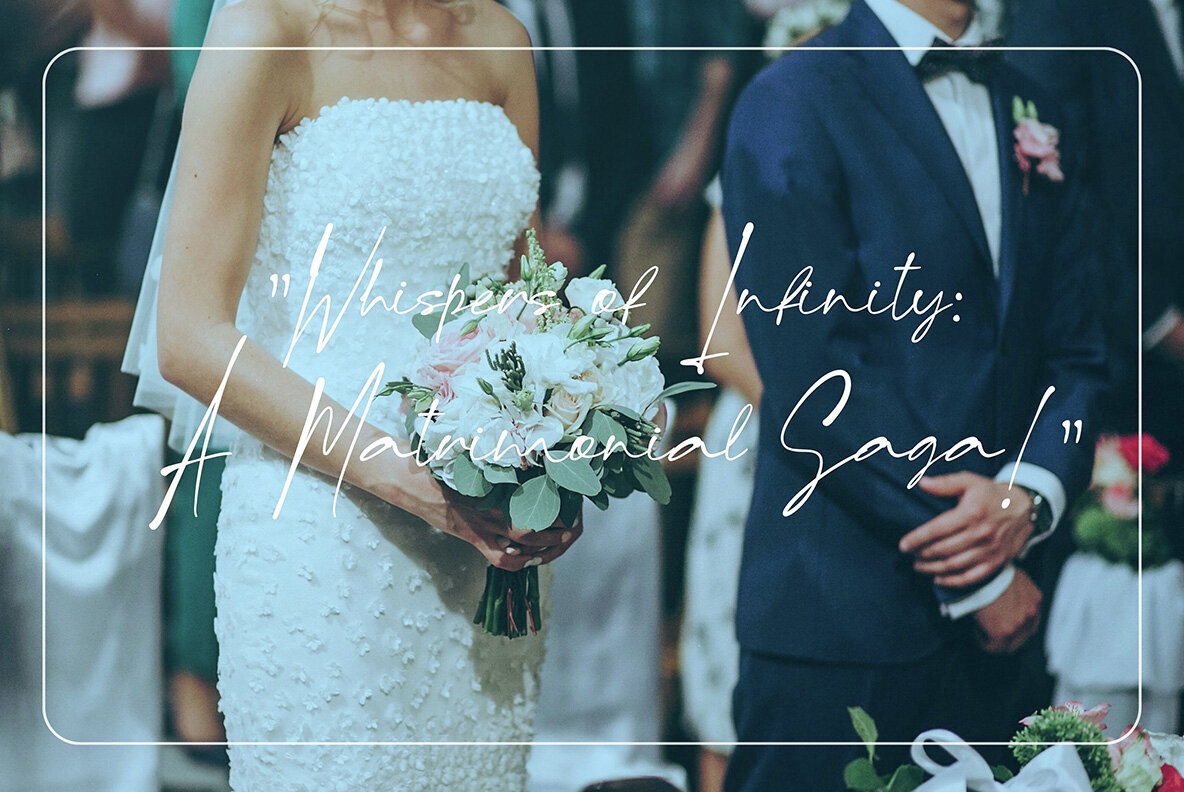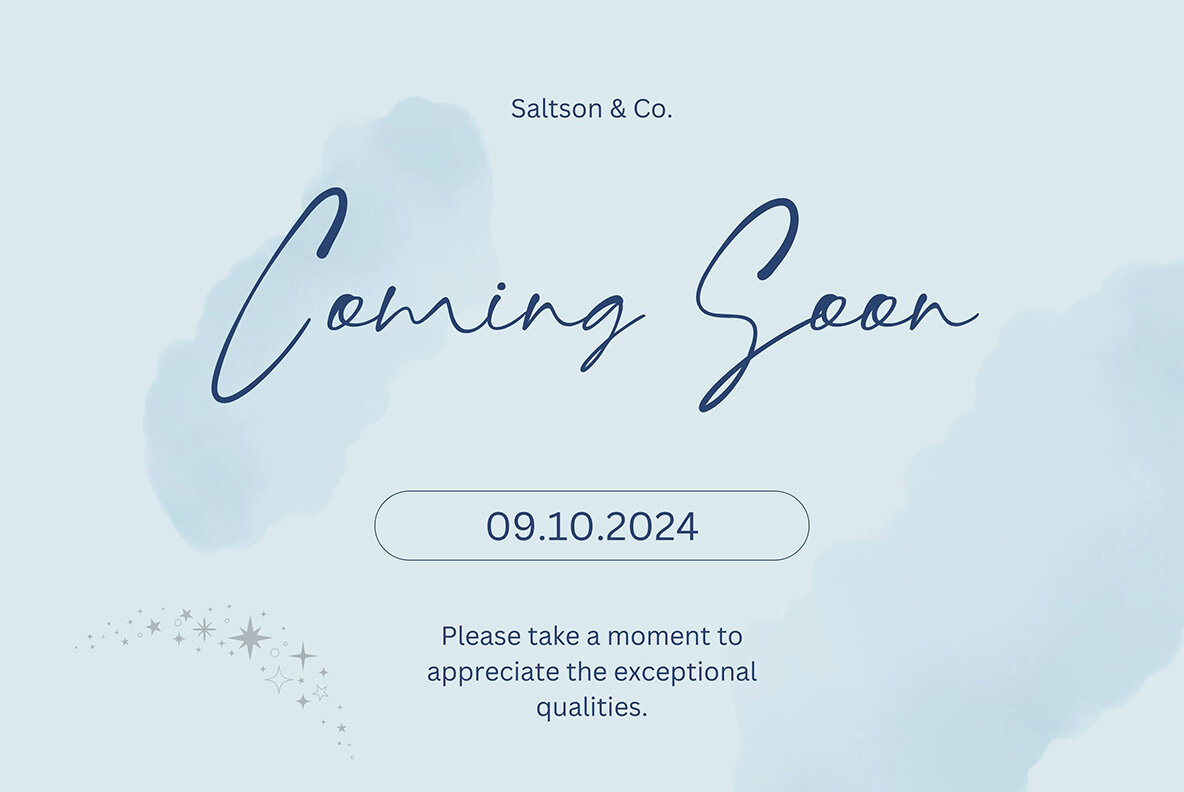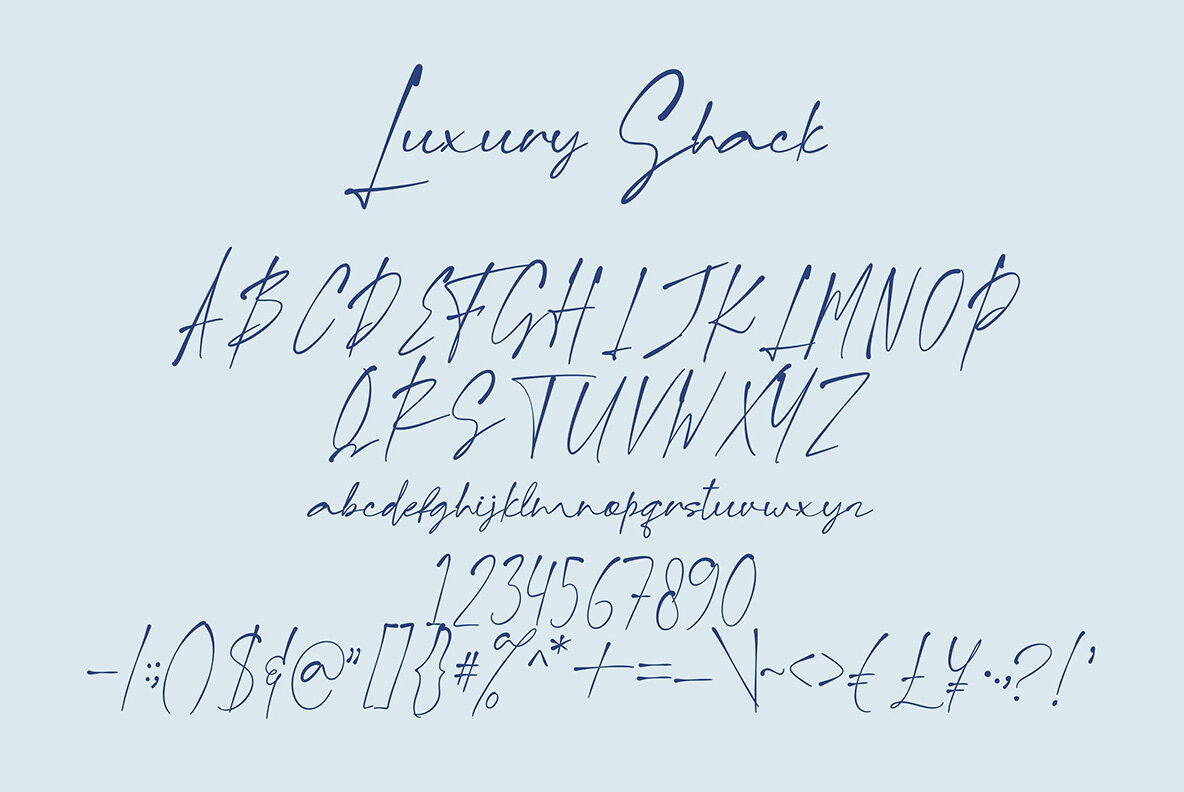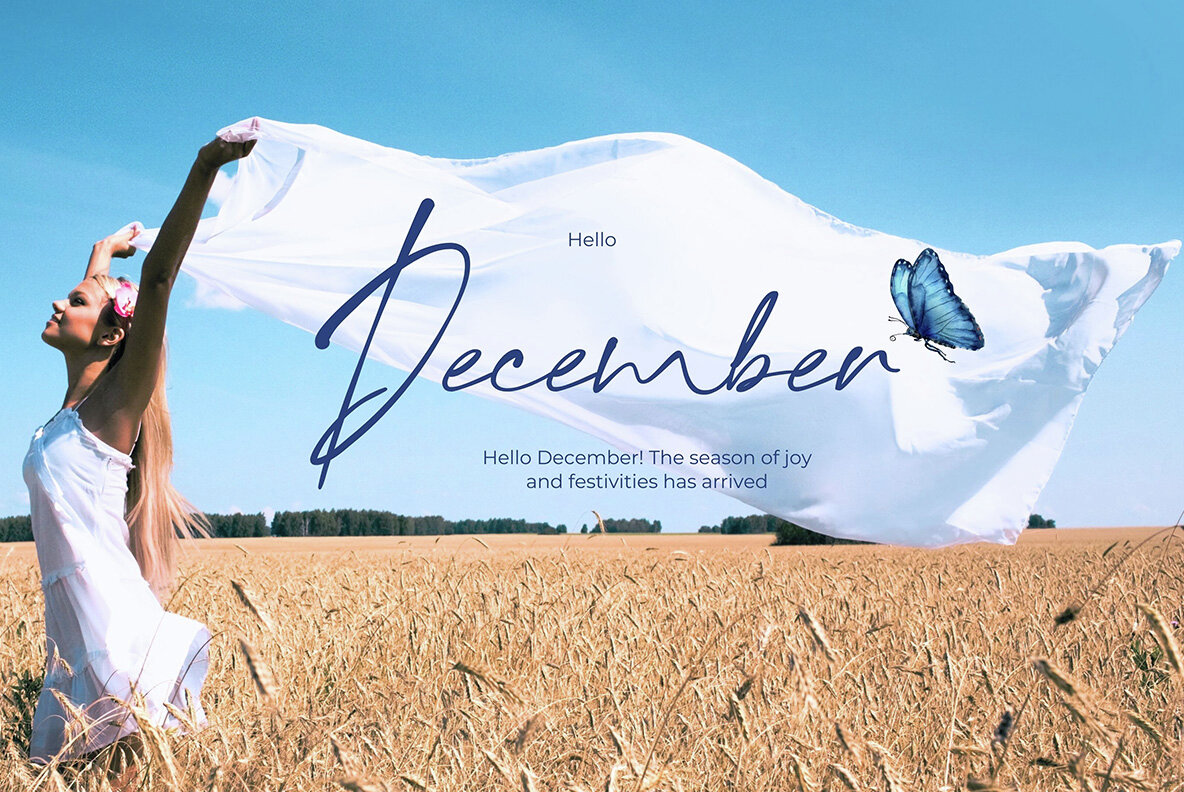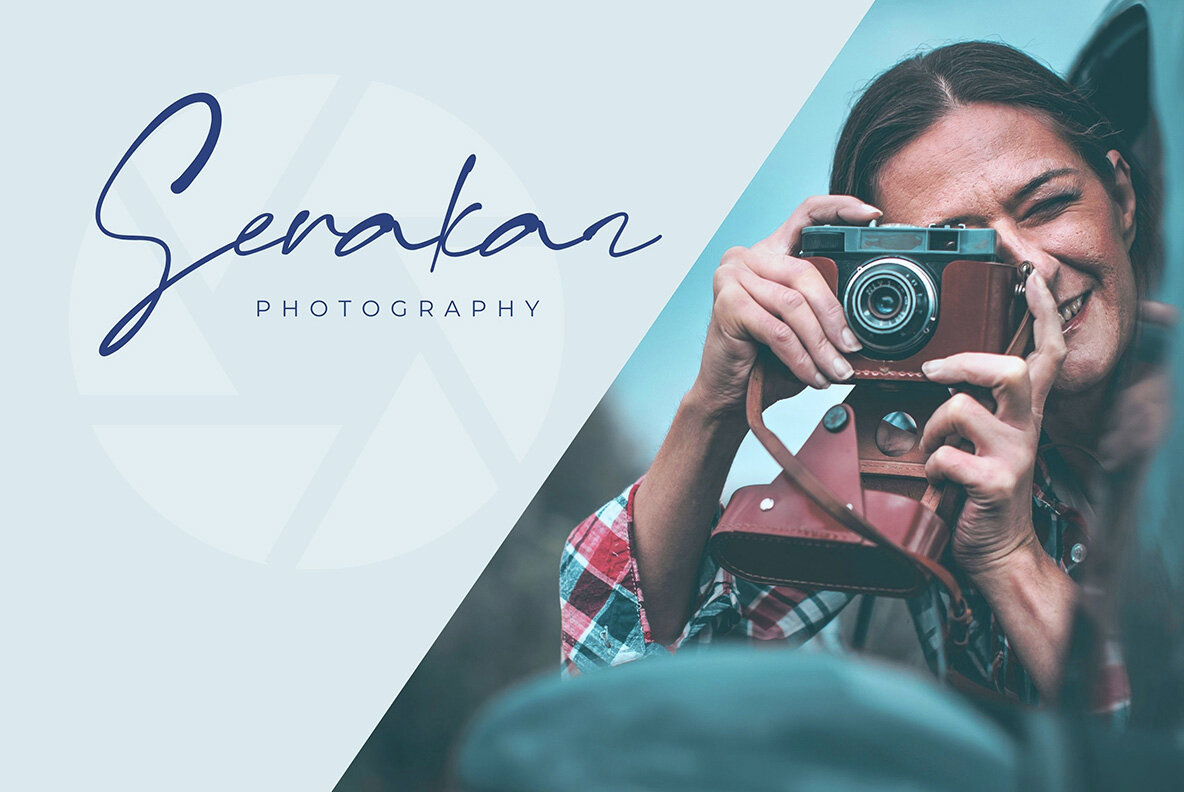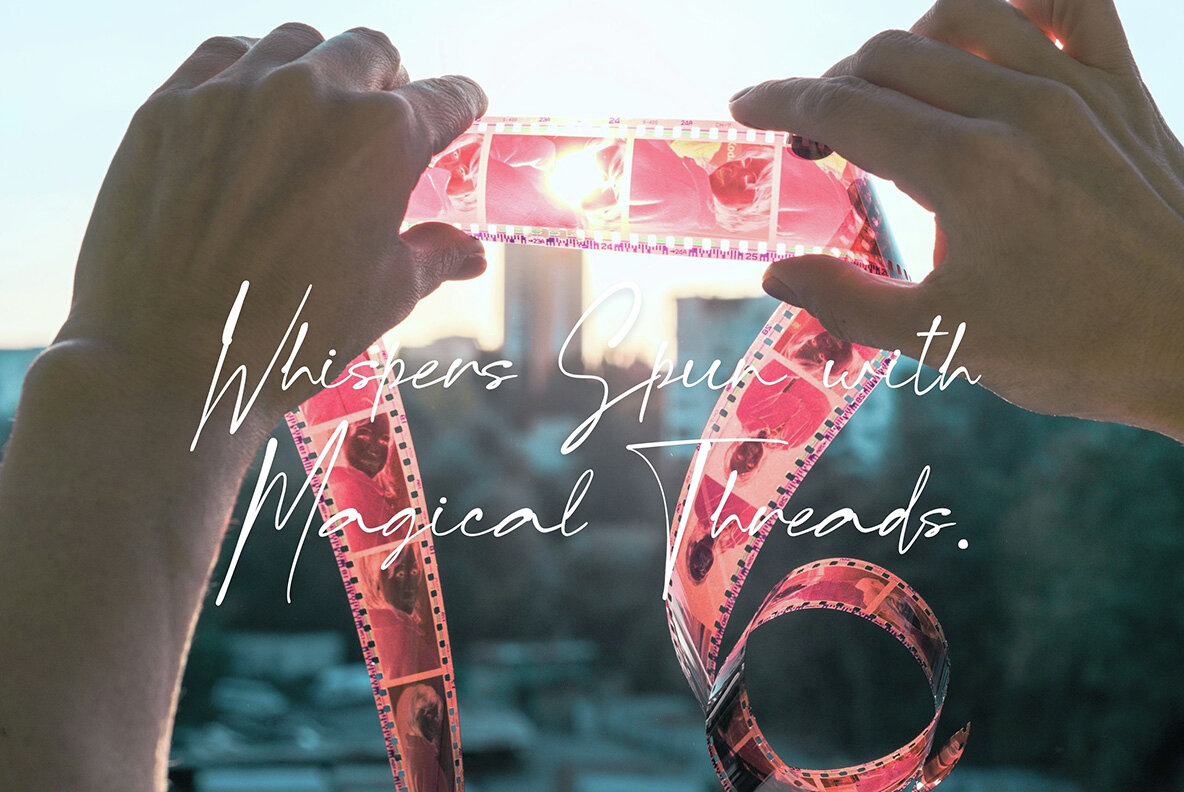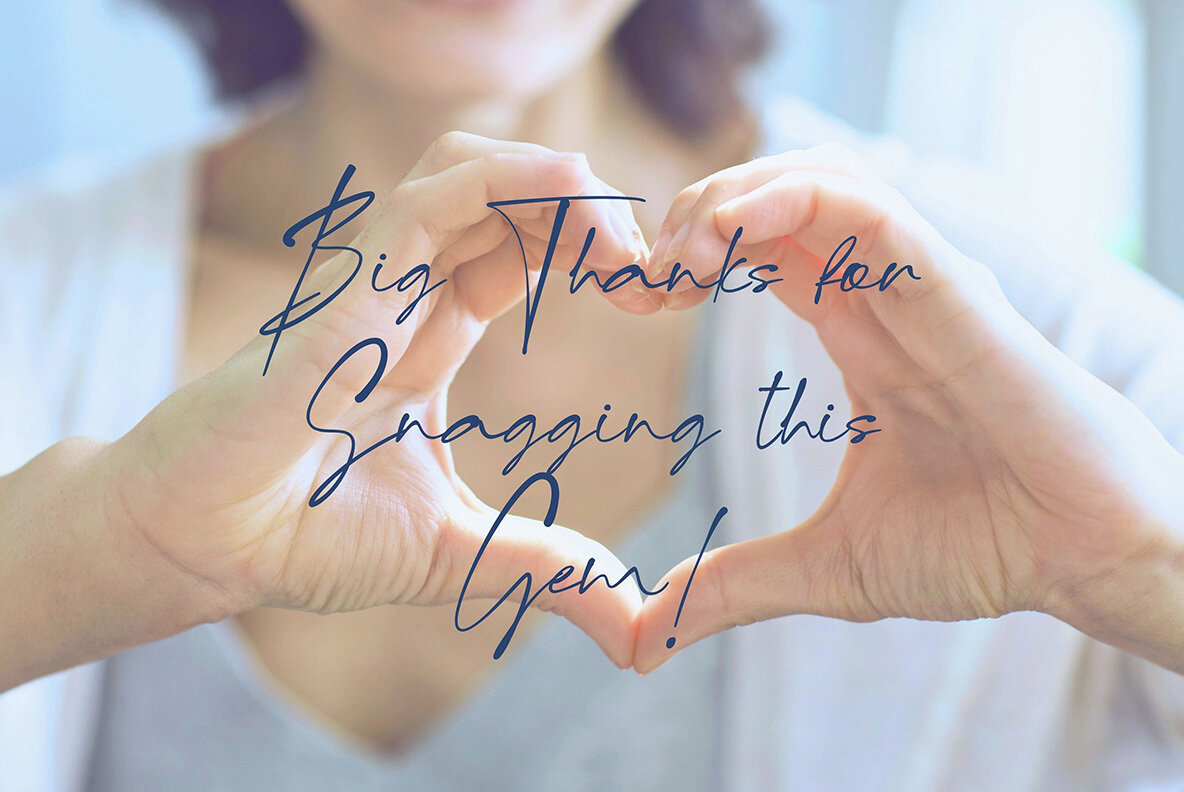
Luxury Shack Font
Luxury Shack Regular
The Luxury Shack font infuses a touch of sophistication and luxury into your designs. With its consistent strokes and a wide array of alternates and ligatures, it achieves a flawless aesthetic that stands out. This font is ideal for a variety of applications, including:Luxury Shack: A Sophisticated and Elegant Font
Versatile Uses